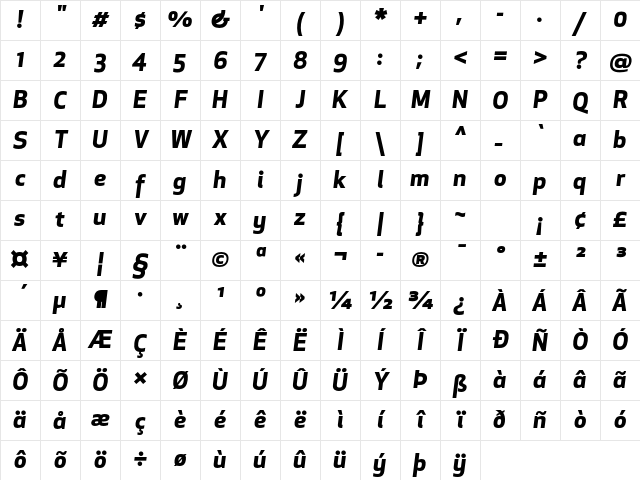
Complete Apex New Bold Italic glyph index. Displaying only characters natively supported by Apex New Bold Italic font.
Apex New is a composed and adaptable typeface that performs quietly and consistently across a wide range of design contexts. The slanted form adds forward momentum and visual energy. Its bold stroke weight gives it real presence on the page.
Pro Tip: Use Apex New for emphasis, pull quotes, and subheadings where its slanted energy can add rhythm to the layout.